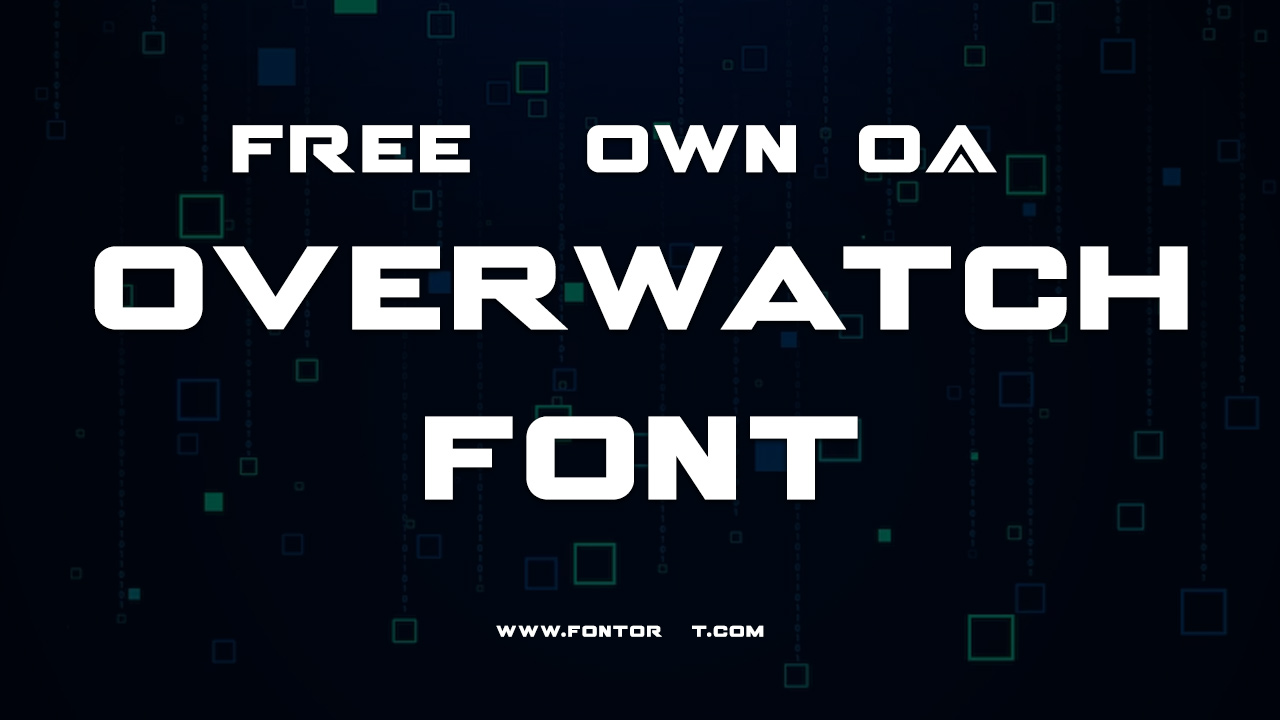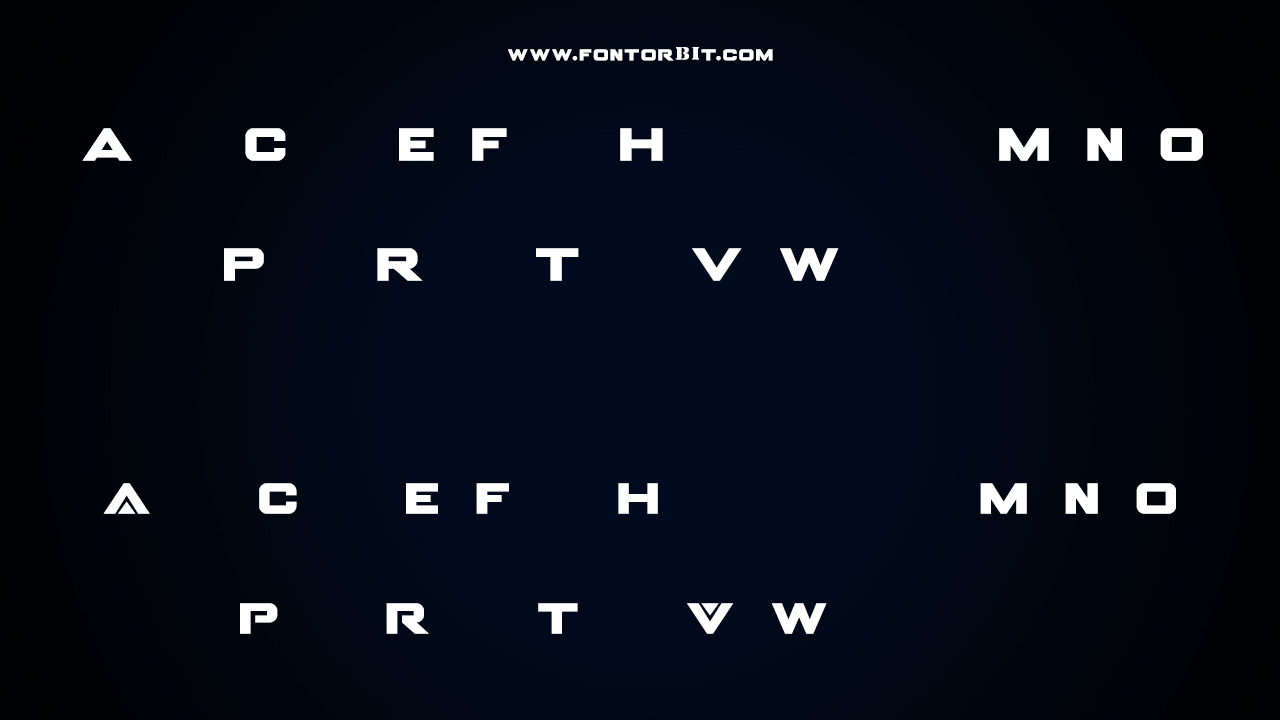
Overwatch Font is a strong and futuristic typeface inspired by the iconic video game “Overwatch.” This fancy Game logo uses the BankSansCaps font.
Morris Fuller Benton and Günther Flake designed the Bank Sans Caps Bold font, a geometric sans serif. The font family is designed to suit different design needs, providing the perfect look for your project. The font family includes:
Overwatch Font Found In Use
Overwatch Font is frequently found in high-energy, modern design projects. Whether used for impactful headlines or sleek logo designs, the font’s futuristic look ensures that any project stands out. Here are a few common use cases:
- Video Game Branding
- Poster Designs
- YouTube Thumbnails
- Event Marketing
The bold, futuristic style of Overwatch Font makes it ideal for various professional and creative projects. Its unique design is well-suited for adding a cutting-edge, modern feel to your work. Some of the best applications include:
- logos
- movies
- video games
- posters
- banners
- comic covers
- magazines
- books
- layouts
If you like Overwatch Font and are looking for other fonts with a bold and futuristic feel, here are some great alternatives that also capture that dynamic essence:
Overwatch Font brings a strong, futuristic vibe to any project. Its clean lines, bold design, and modern aesthetic make it a perfect choice for logos, banners, posters, and other promotional materials. Pairing it with simpler, sans-serif typefaces can create a balanced, professional look for various designs.
1.Is Overwatch Font Suitable For Long Paragraphs Of Text?
Due to its bold, fancy style, Overwatch Font is best suited for titles, headings, and short text. Large blocks of text may reduce legibility.
2.How Does Overwatch Font Differ From Other Futuristic Fonts?
Overwatch Font stands out with its sleek, high-tech aesthetic inspired by the branding of the popular video game. Its clean, geometric lines give it a distinct look compared to other futuristic fonts.
3.What Are The Most Common Uses For Overwatch Font?
Overwatch Font is commonly used in branding, video game logos, event promotions, digital banners, and tech-related design projects.
4.What Design Principles Does Overwatch Font Follow?
Overwatch Font focuses on modernity and impact. Its sharp, clean lines and bold structure help create a strong visual presence in any design.
5.What Colors Complement Overwatch Font?
Overwatch Font pairs well with bold, vibrant colors like orange, red, or metallic shades that highlight its futuristic design. Darker backgrounds also help the font stand out.